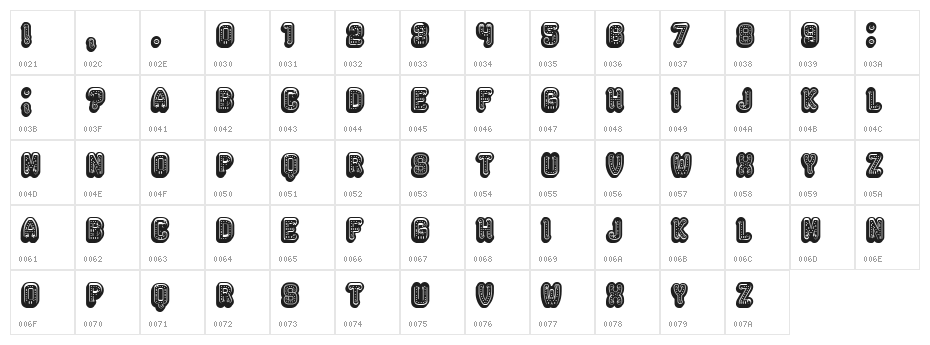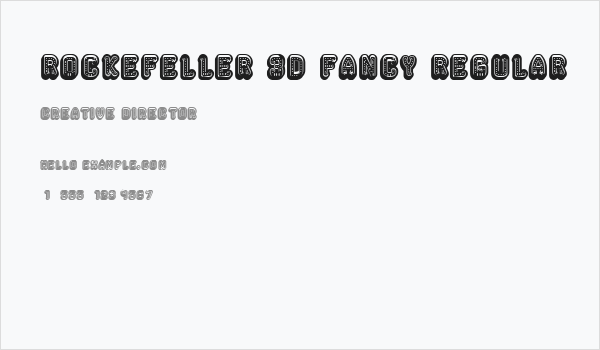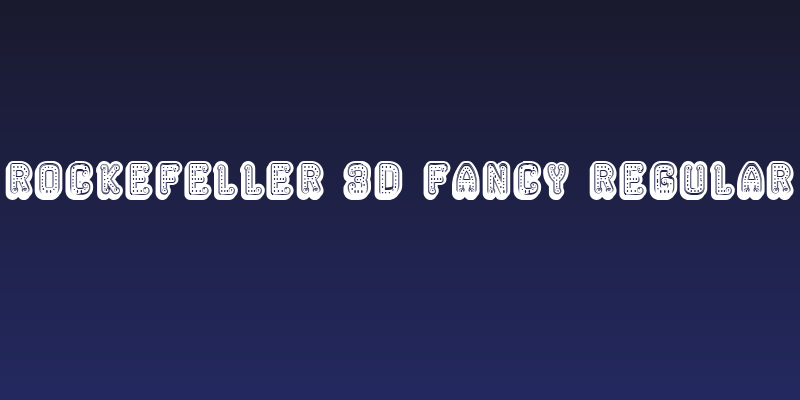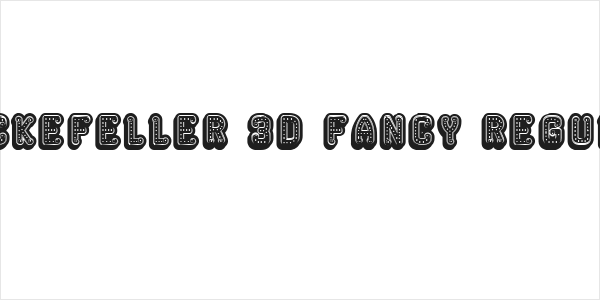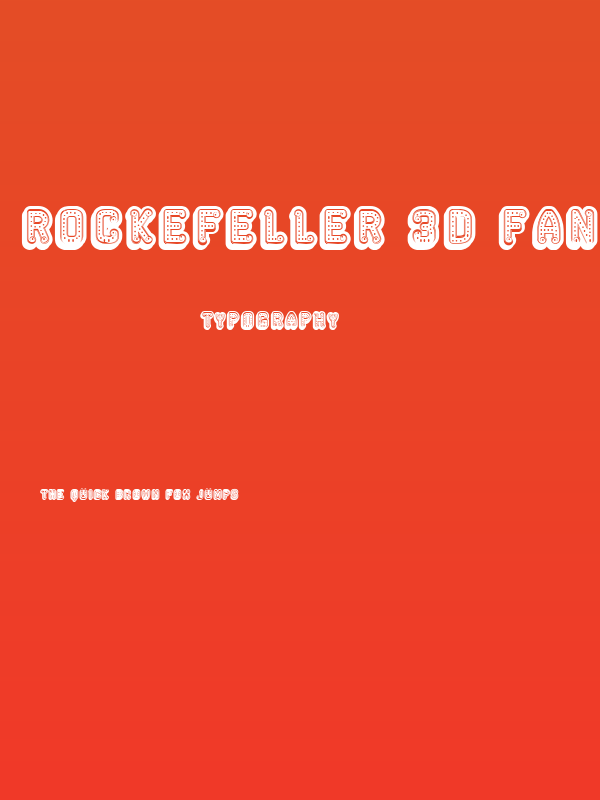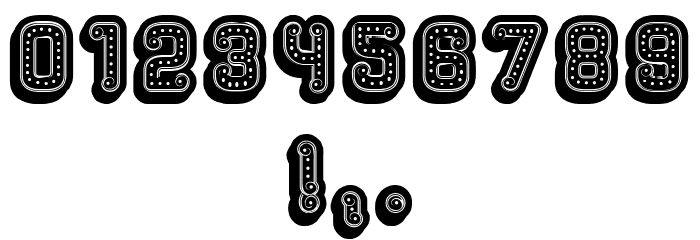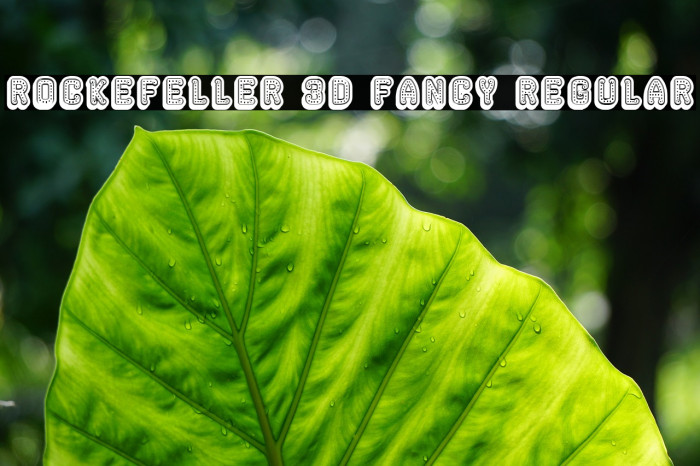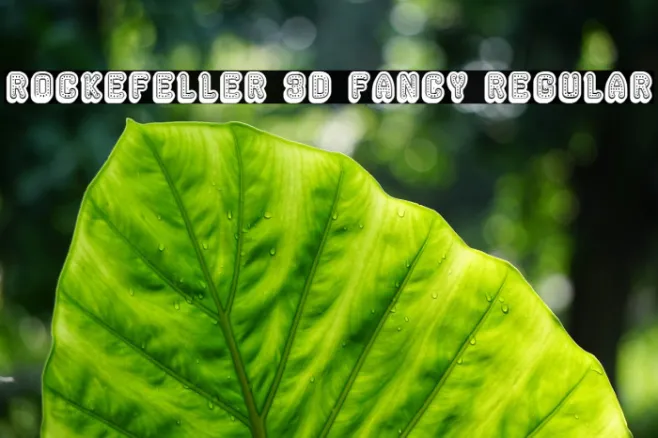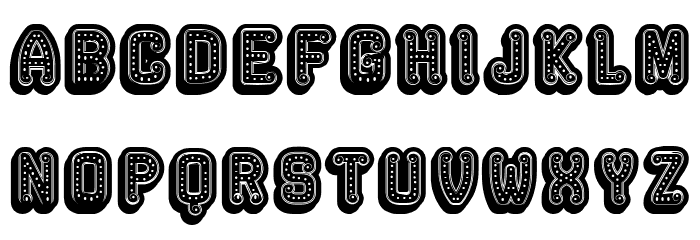
Rockefeller 3D Fancy Regular Font
Rockefeller 3D Fancy Regular Description
This font features a bold, three-dimensional style with a decorative flair. Each character is outlined with a thick black border, creating a striking contrast against the inner white space. The interior of each letter is adorned with a series of dots and lines, adding a playful and intricate detail. The overall appearance is reminiscent of vintage marquee signs, giving it a nostalgic yet modern appeal. The uppercase and lowercase letters maintain consistent styling, while the numerals and special characters seamlessly integrate into the design. This font is ideal for projects that require a bold statement and a touch of whimsy.
| Proposed Projects | Ideal for posters, signage, branding, and any project needing a bold, decorative touch. |